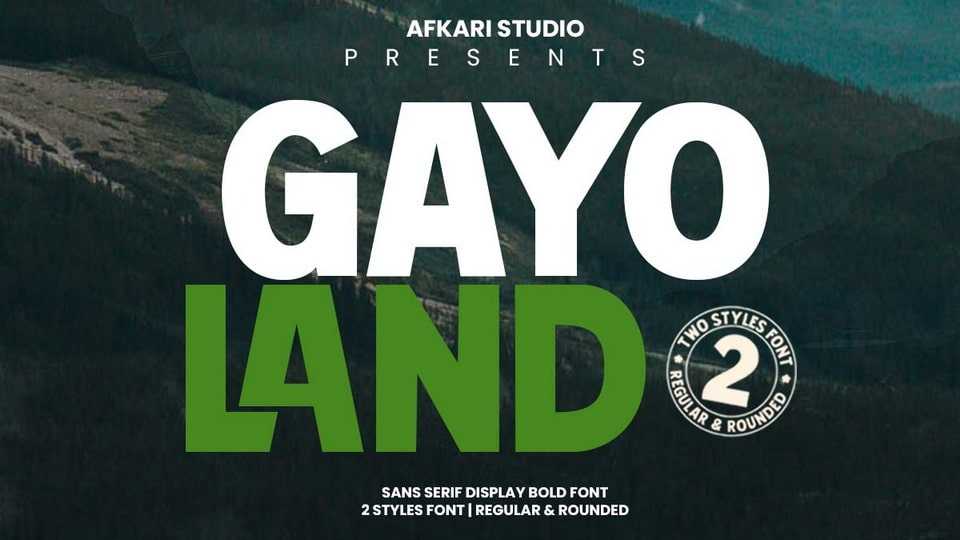
Download Gayo Land font, a display typeface designed to elevate your creative projects with a bold, retro-inspired flair. This distinctive typeface is meticulously crafted to make a statement, combining the classic charm of a sans-serif font with a bold weight that demands attention.
Designer: Afkari Studio